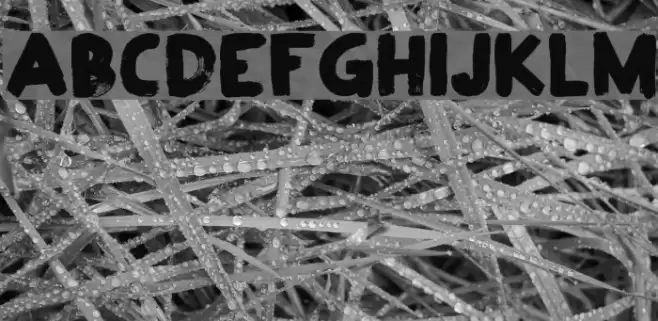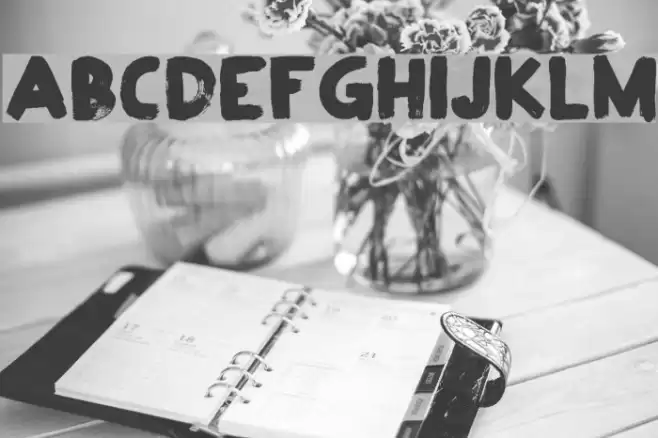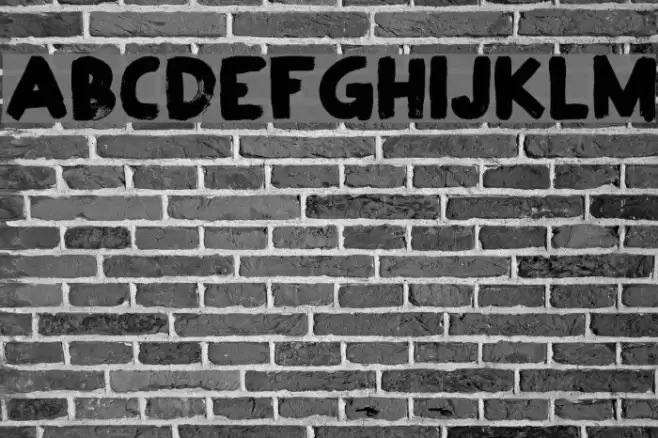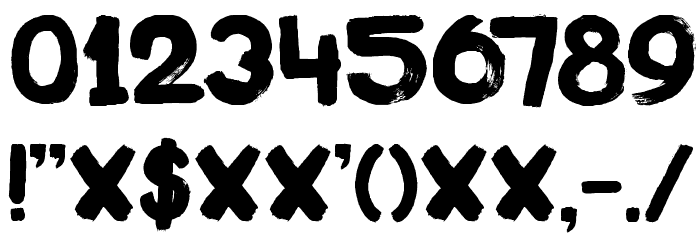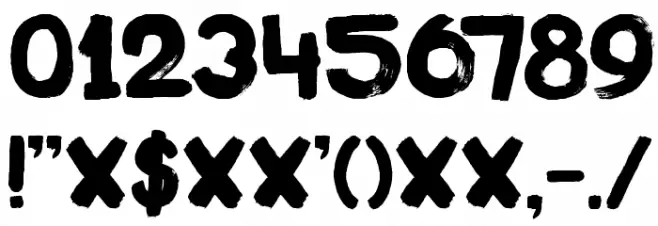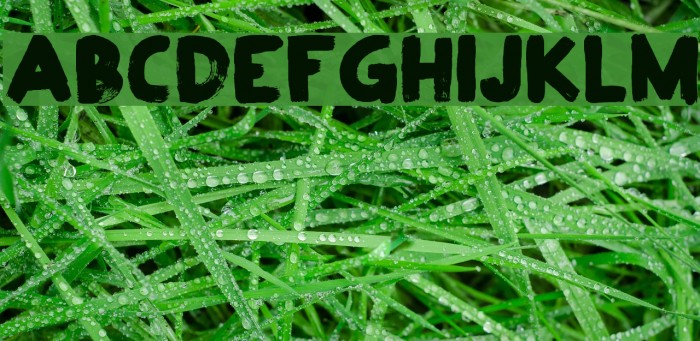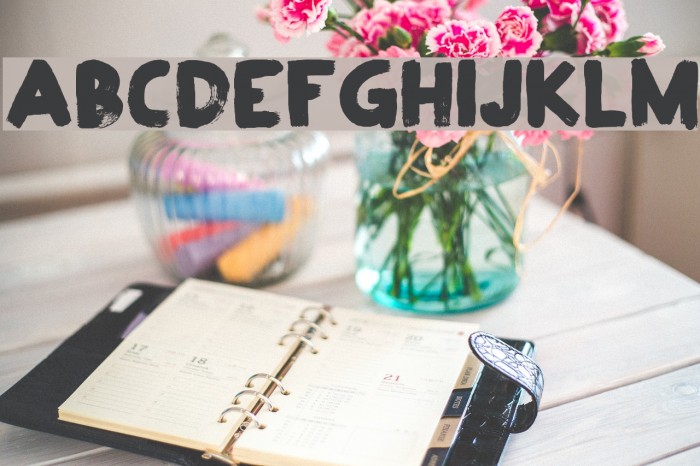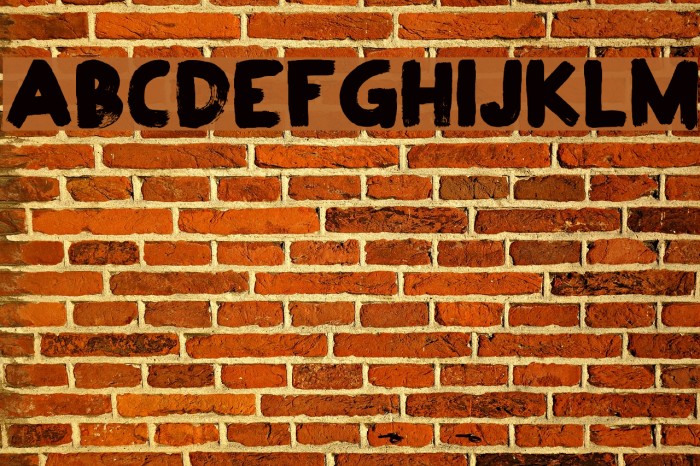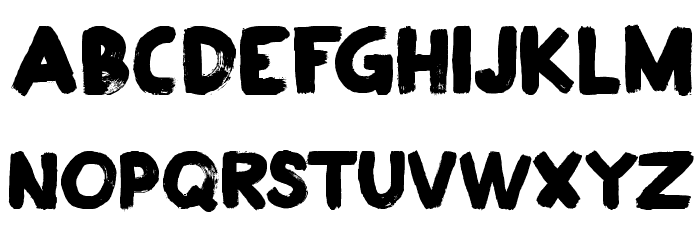
DK Plakkaat Font
DK Plakkaat Description
This font features a bold and expressive style with a hand-painted appearance. The characters are thick and robust, giving a sense of strength and impact. The edges are slightly rough, adding a textured, artistic feel that mimics brush strokes. This font is highly legible and stands out due to its unique, handcrafted look. It is perfect for projects that require a bold statement or an artistic touch. The uppercase letters are consistent in height, while the numbers and special characters maintain the same bold, textured style.
A bold, hand-painted style font with a textured, artistic appearance from Uncategorized fonts.
- Proposed Projects: Ideal for posters, branding, packaging, and any design that requires a bold, artistic statement.